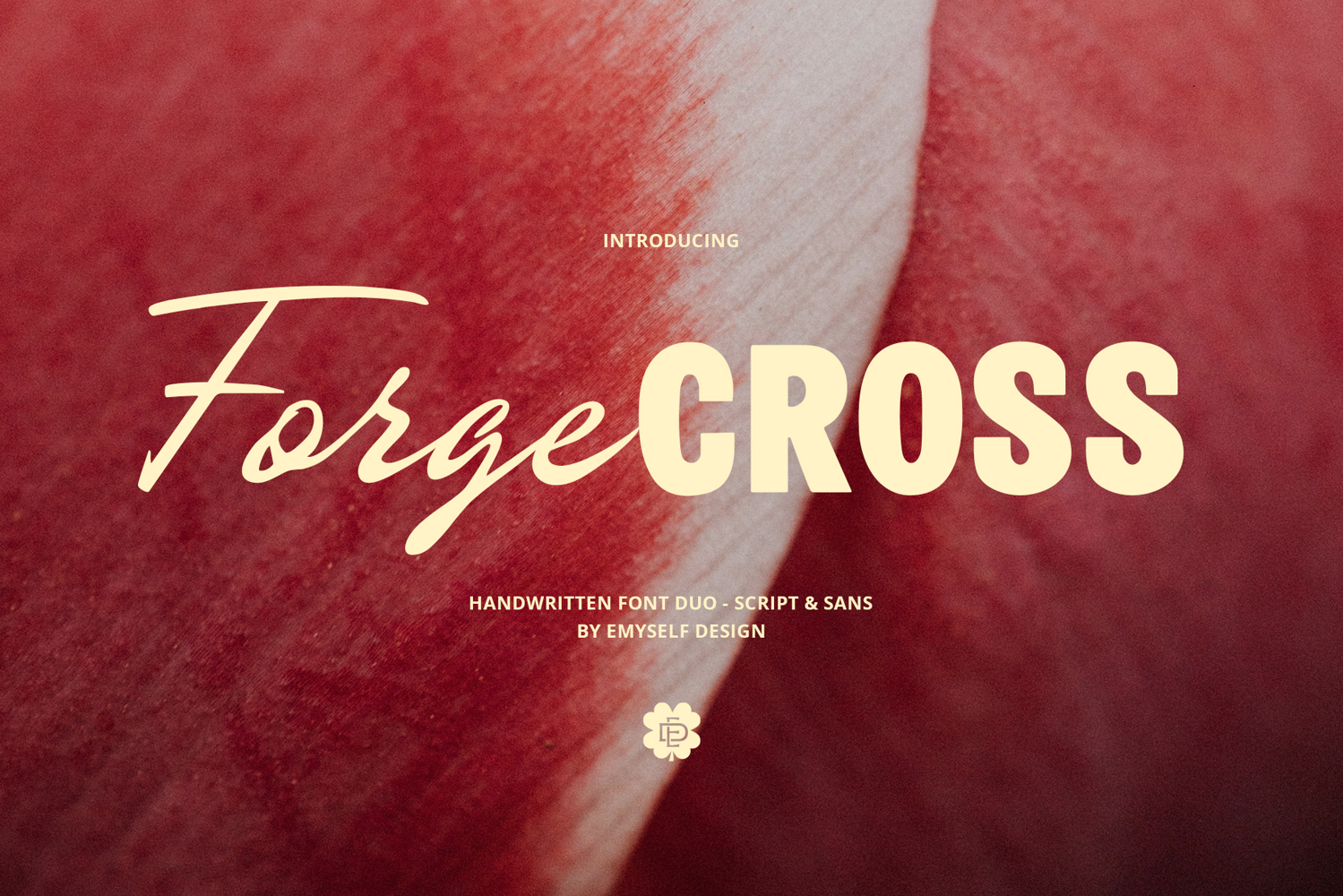
ED Forge Cross - Handwritten Font Duo
ED Forge Cross is a modern duo font that blends the elegance of handwritten script with the bold clarity of sans serif. This pairing creates a versatile design tool that’s perfect for adding both personality and impact to your projects. The script delivers a natural handwritten feel, while the sans serif provides strength and balance—making them an ideal match for branding, logos, packaging, posters, invitations, and social media graphics.